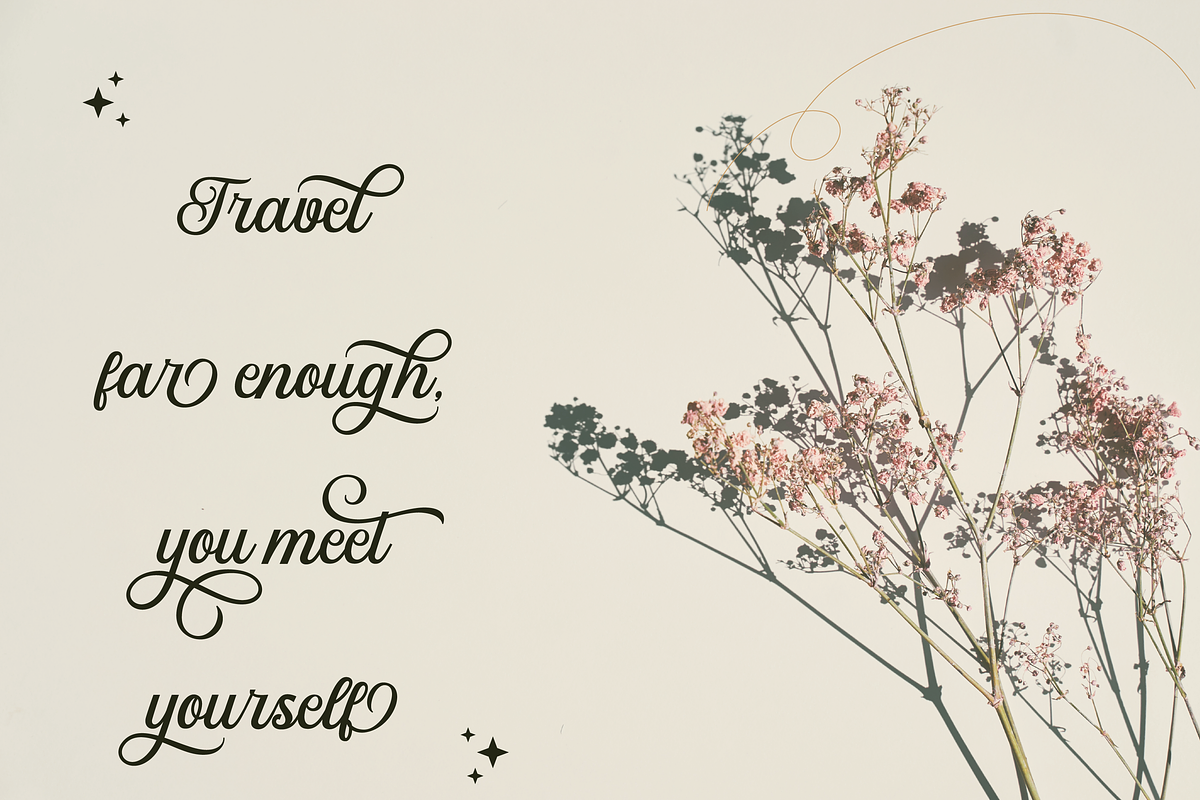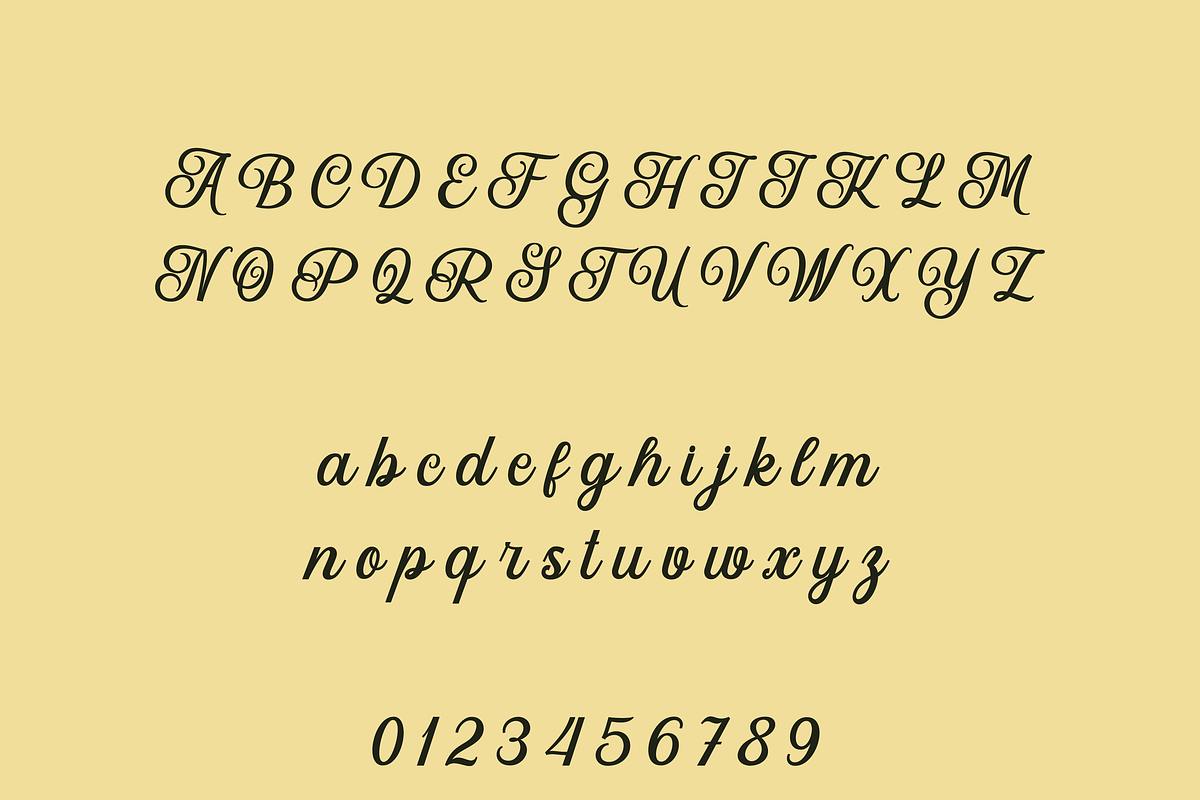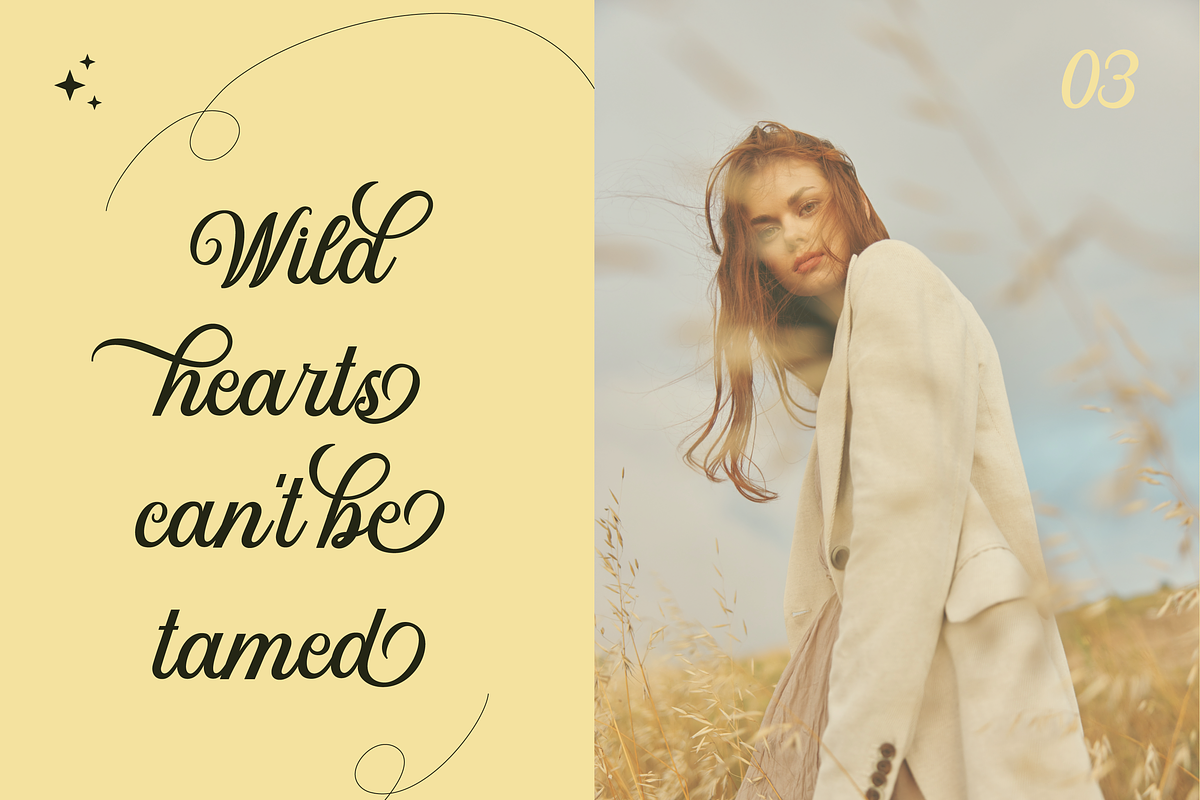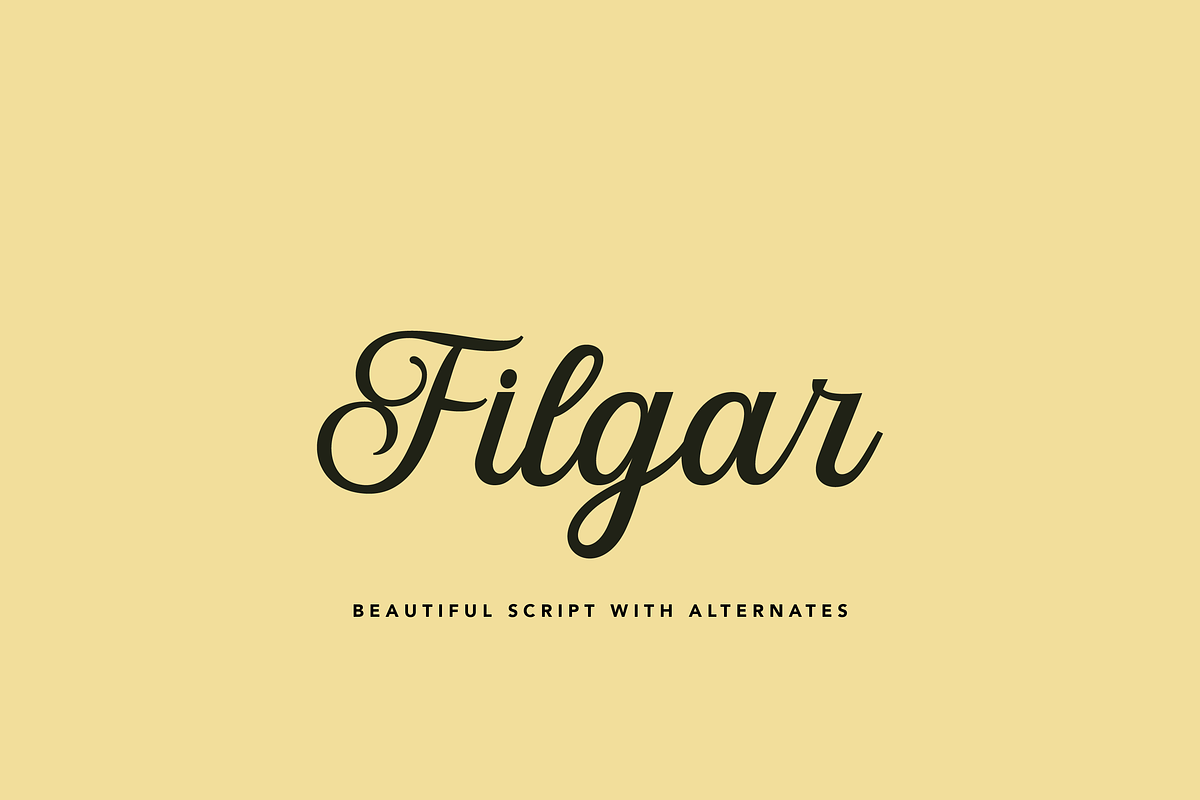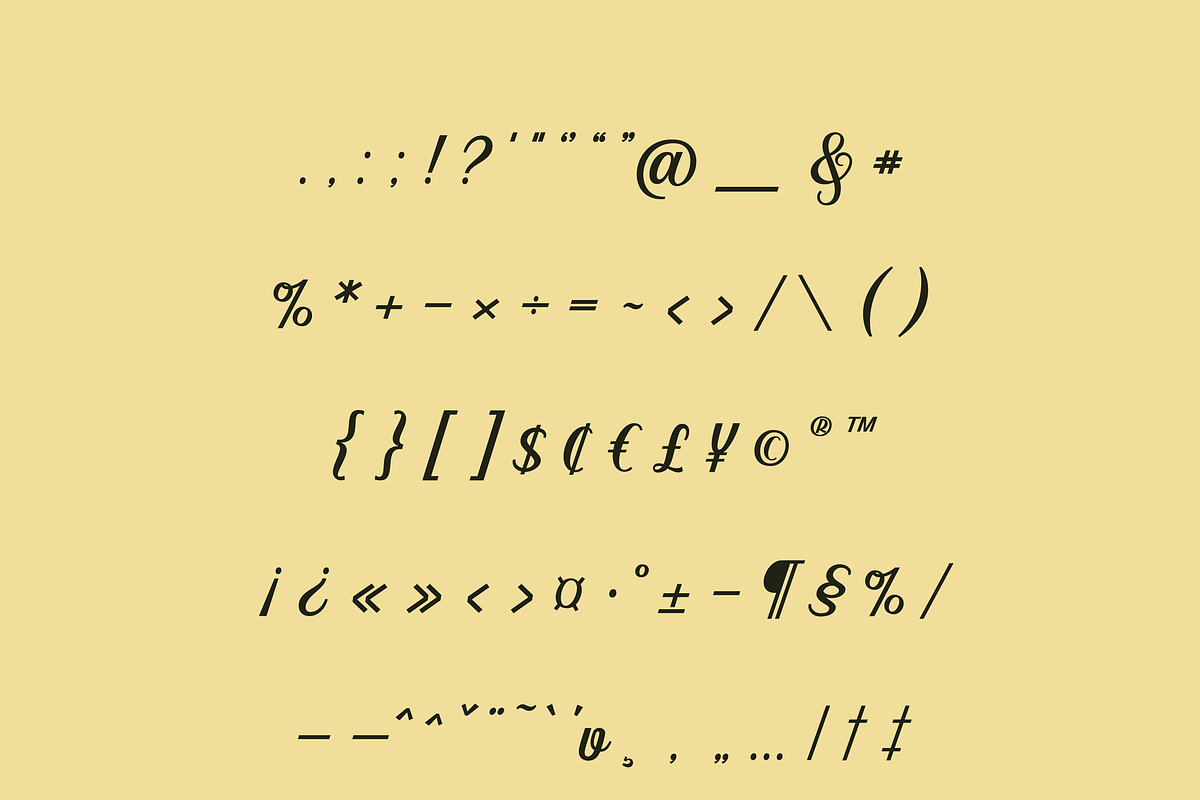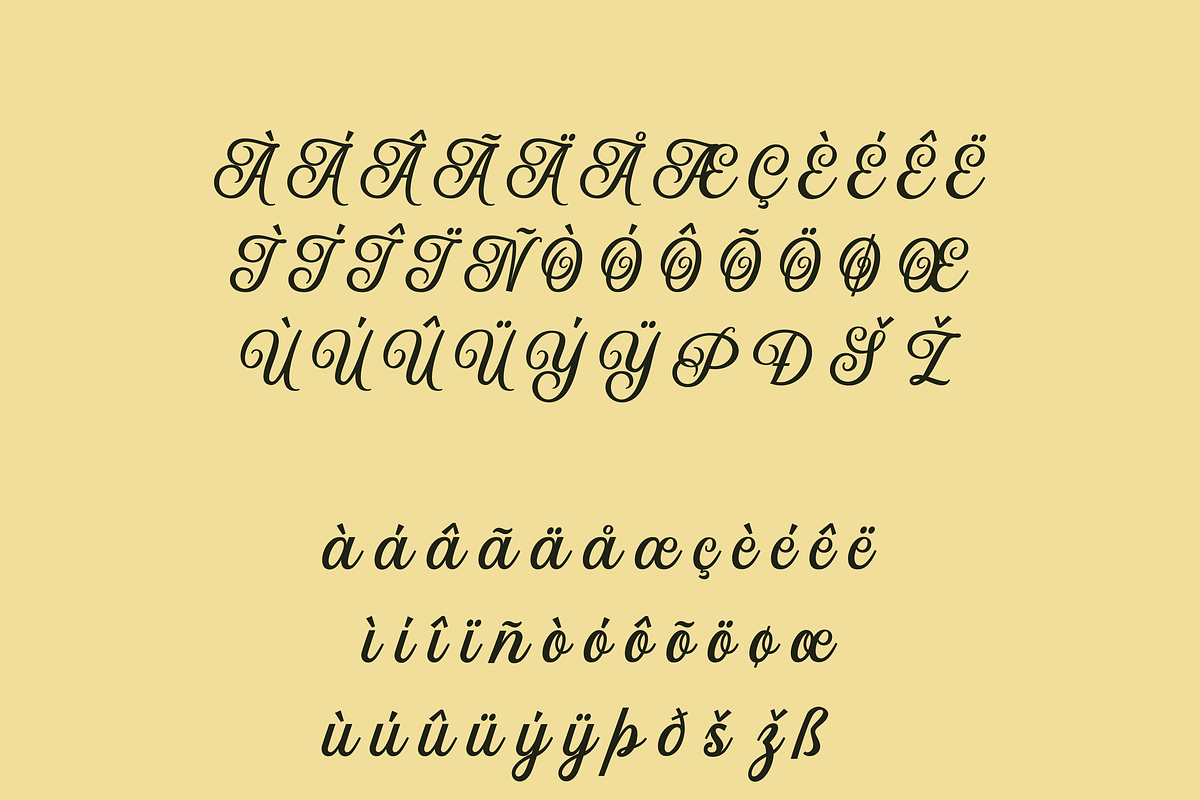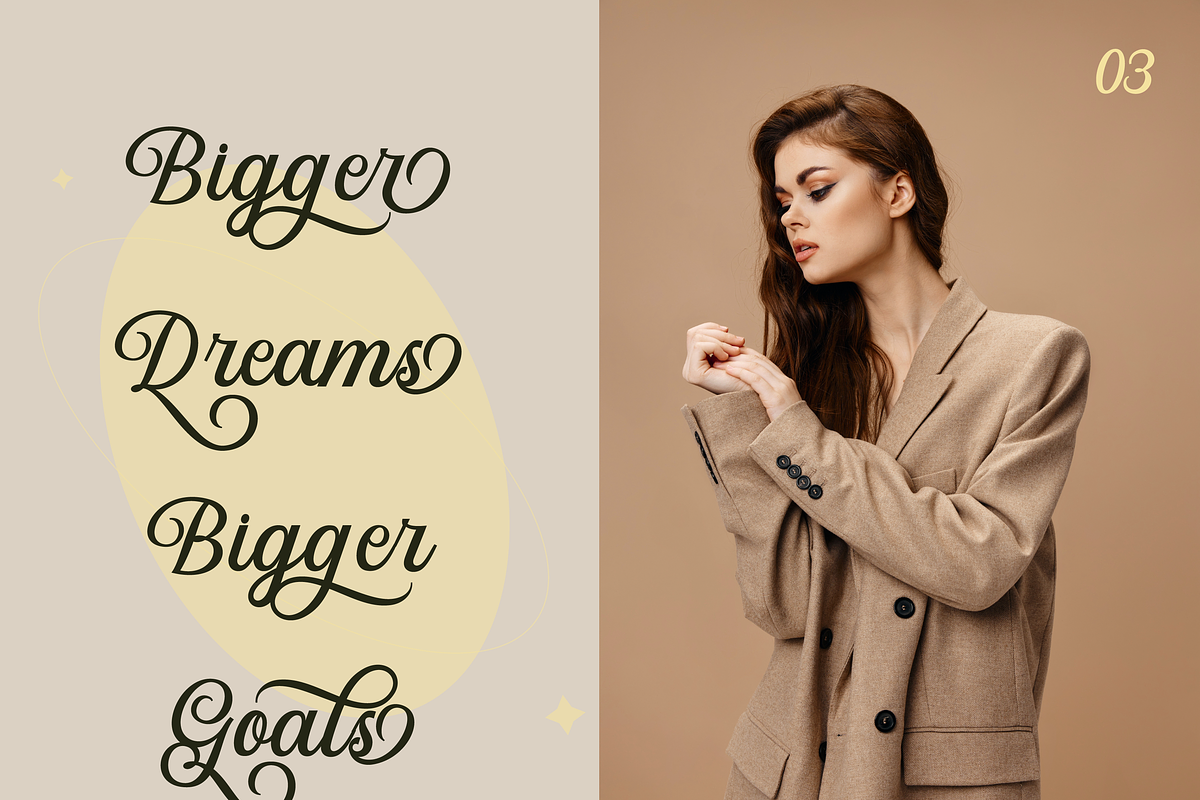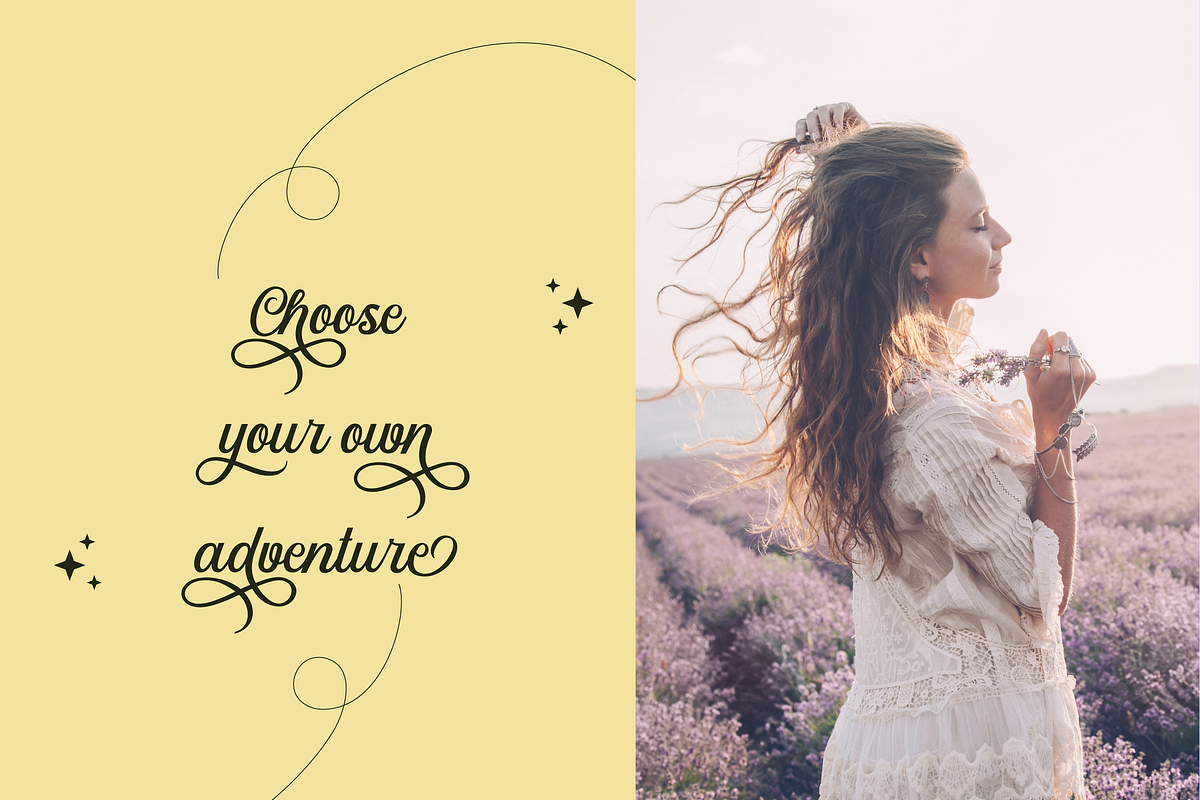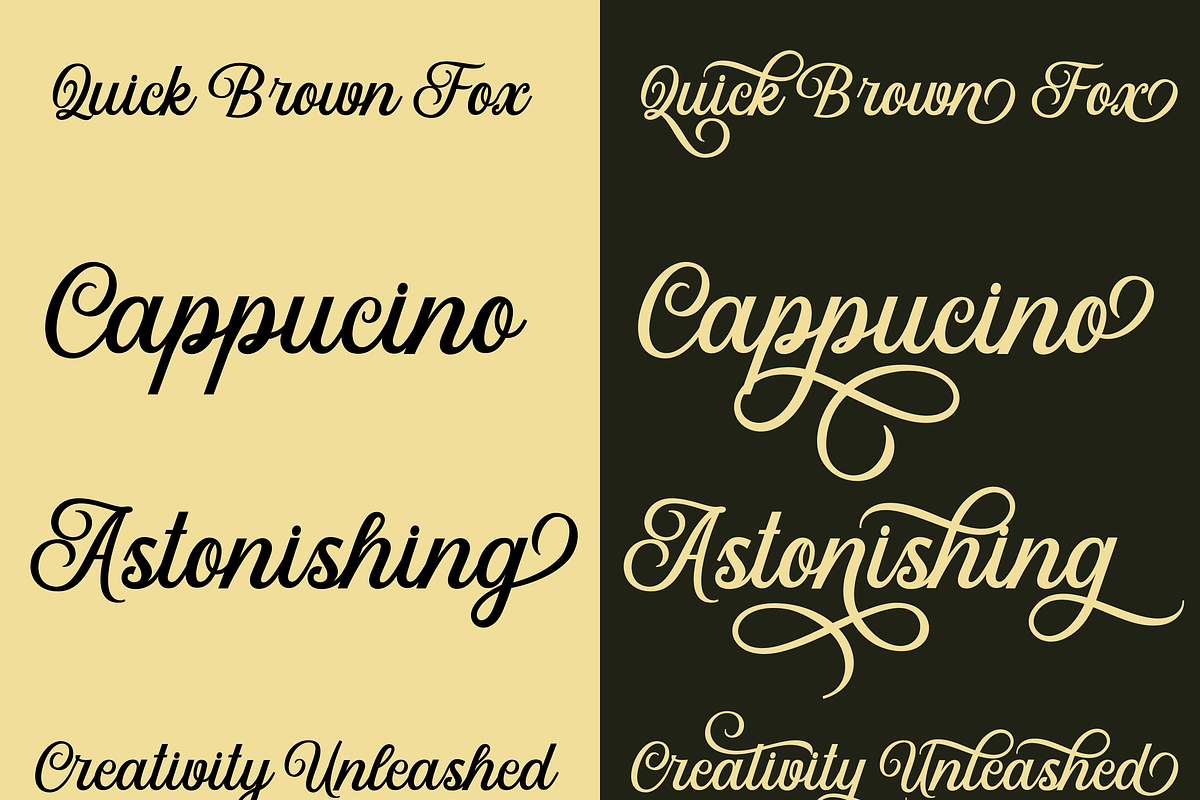
Filgar – A Luxurious Script
Filgar – A Luxurious Script Font for Elegant Designs
Filgar is a stunning luxury script font that combines flowing curves with sophisticated letterforms, making it perfect for high-end designs. Its graceful and elegant style adds a unique flair to branding, wedding invitations, photography, neon signs, logos, greeting cards, quotes, and more. Whether you're looking to create a romantic, artistic, or modern look, Filgar elevates any project with its refined beauty.